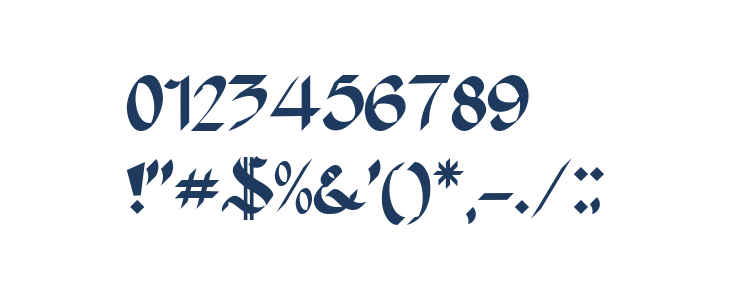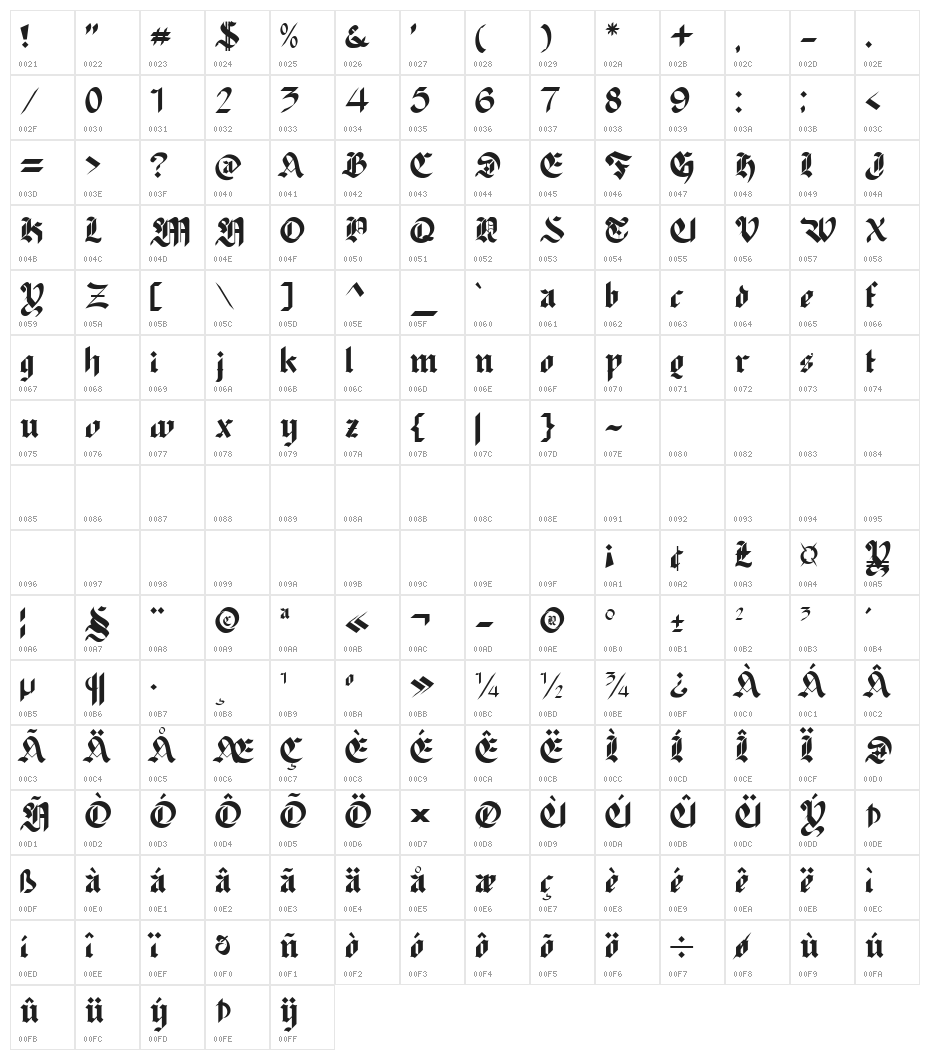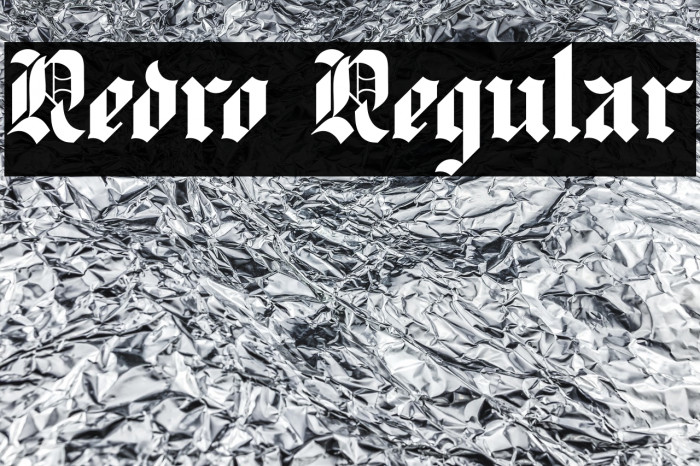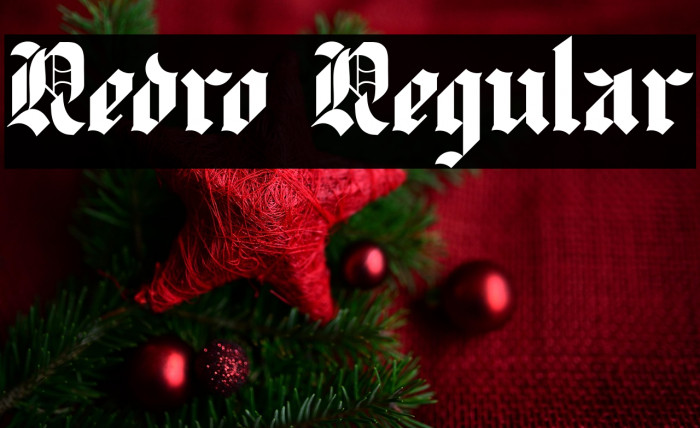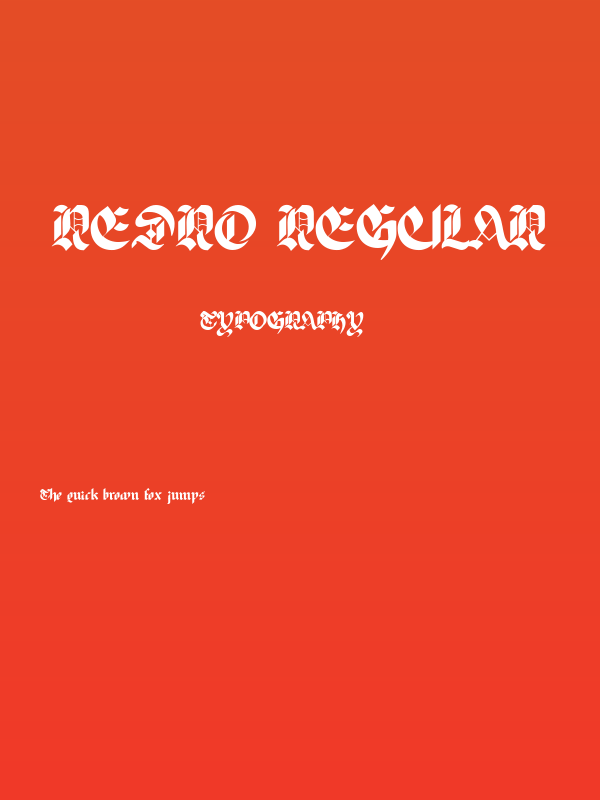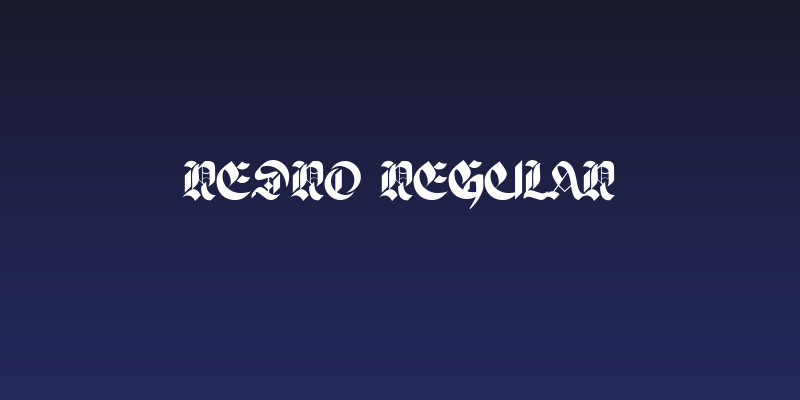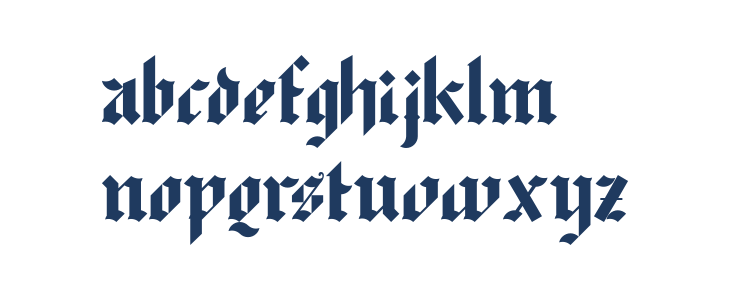
Redro Regular Font
Redro Regular Description
This font is a striking example of Blackletter style, characterized by its bold, angular strokes and intricate detailing. The uppercase letters exhibit a strong, authoritative presence with sharp edges and dramatic flourishes, while the lowercase letters maintain a consistent style that complements the uppercase. The numerals are equally bold, with a distinct medieval flair that enhances the overall aesthetic. Special characters are crafted with the same attention to detail, ensuring a cohesive look across all glyphs. This font's historical and ornate design makes it ideal for projects that require a touch of elegance and tradition.
| Overall Style | Vintage |
| Use Case | Headlines, Logos, Decorative text |
| Proposed Projects | Ideal for historical documents, wedding invitations, book covers, and branding that requires a traditional or gothic touch. |